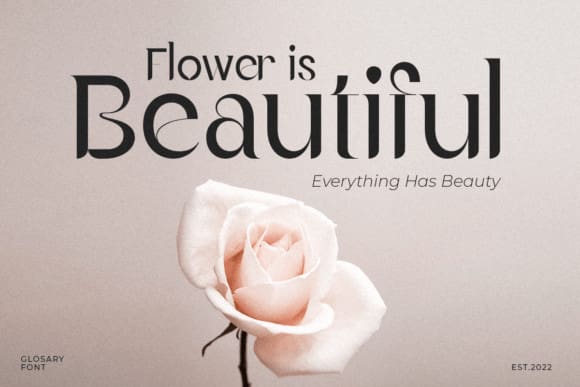
Glosary Font
Glosary Font is a stylish sans-serif font that blends classic elegance with modern flair. Its graceful curves make it perfect for upscale branding, sophisticated print media, and elegant invitations. Elevate your design with Glosary, where timeless beauty meets contemporary sophistication in every stroke.